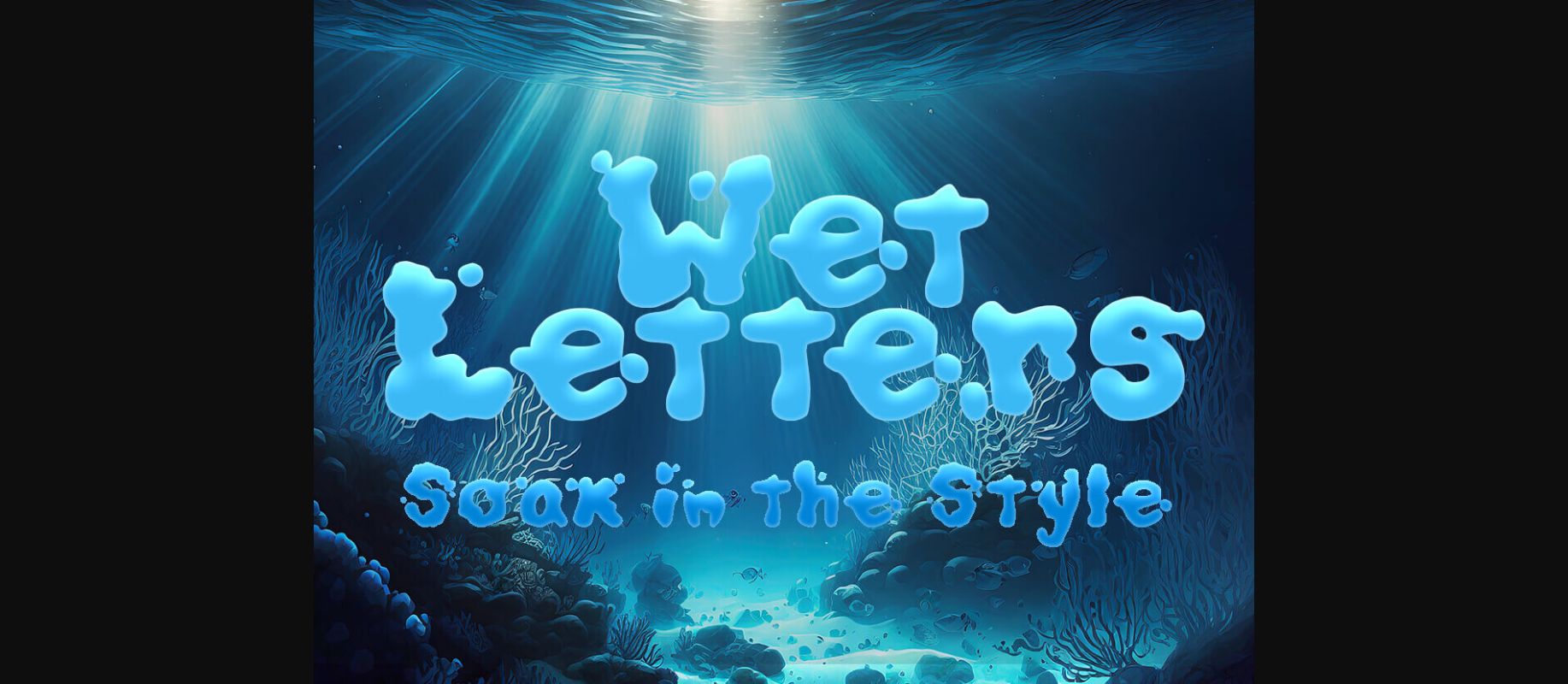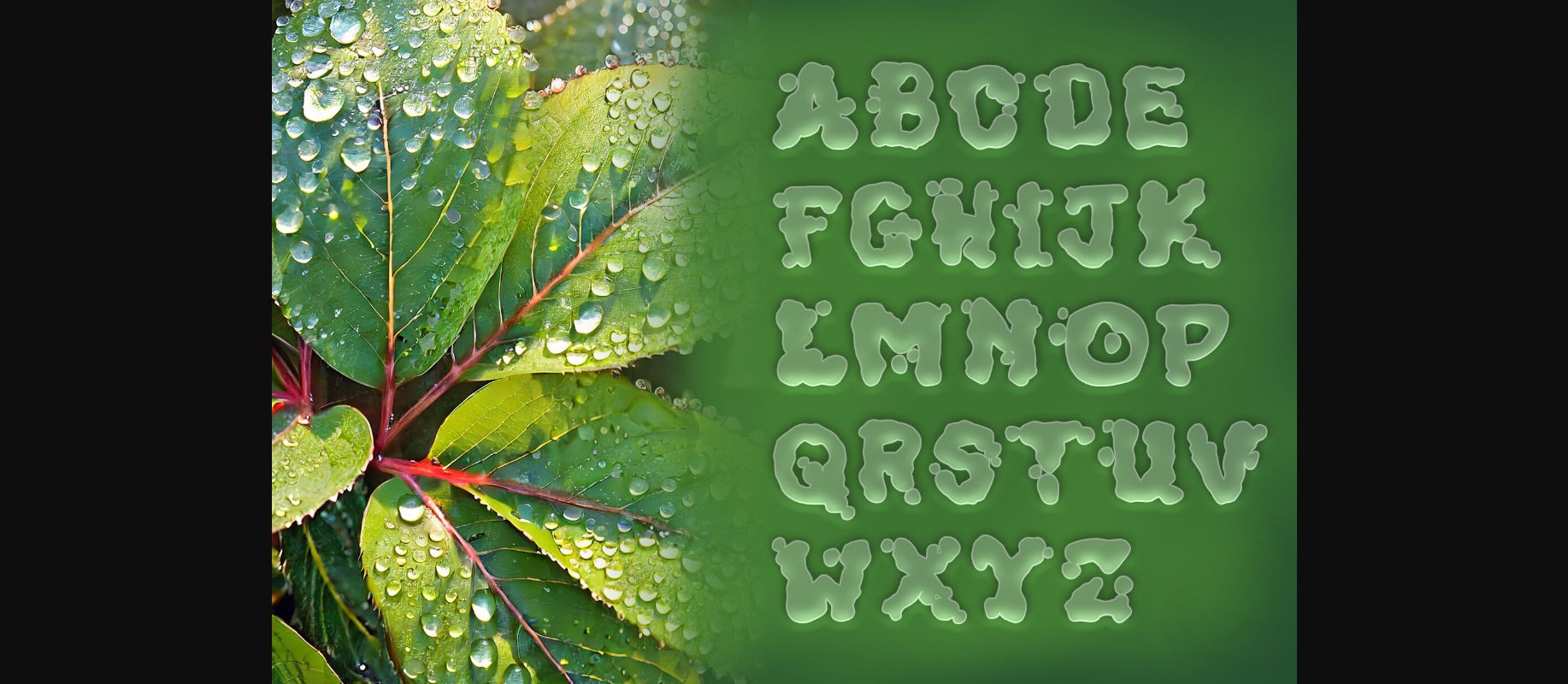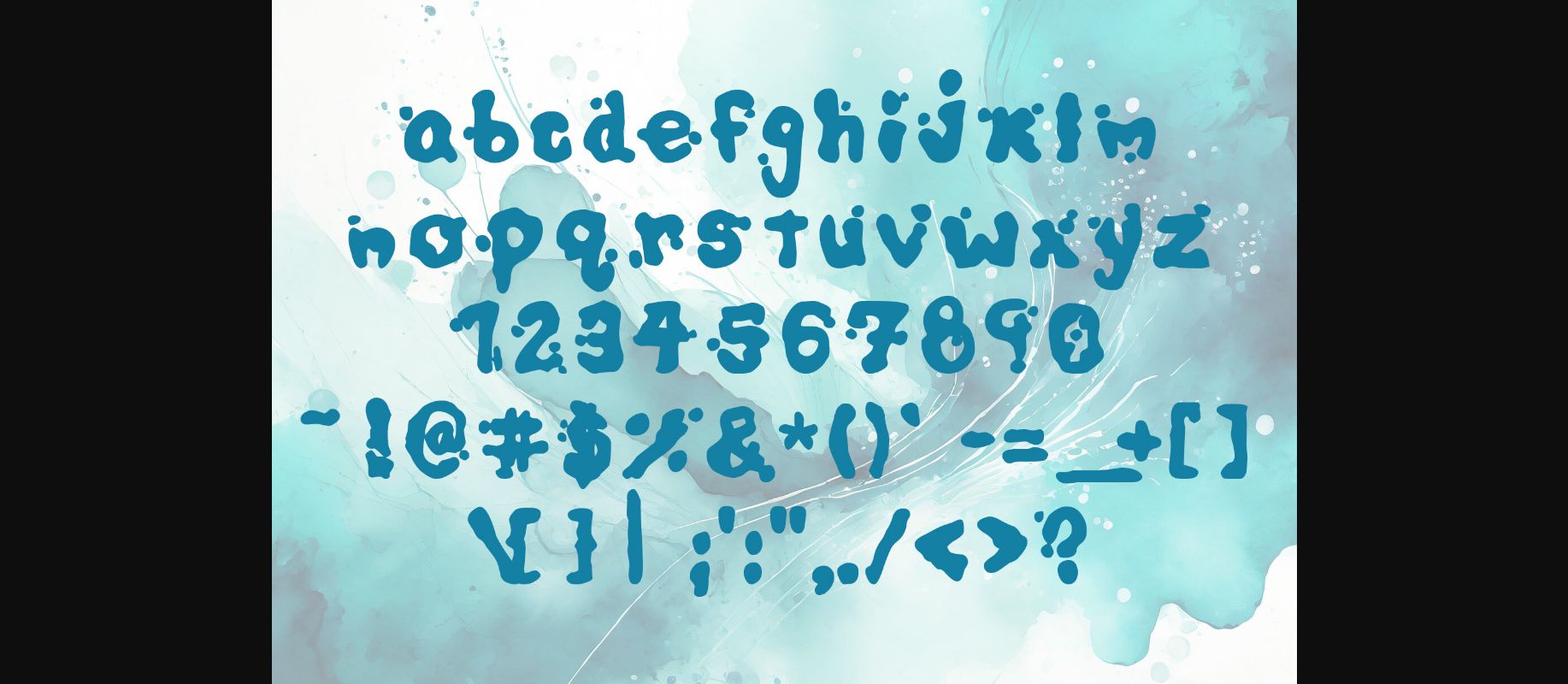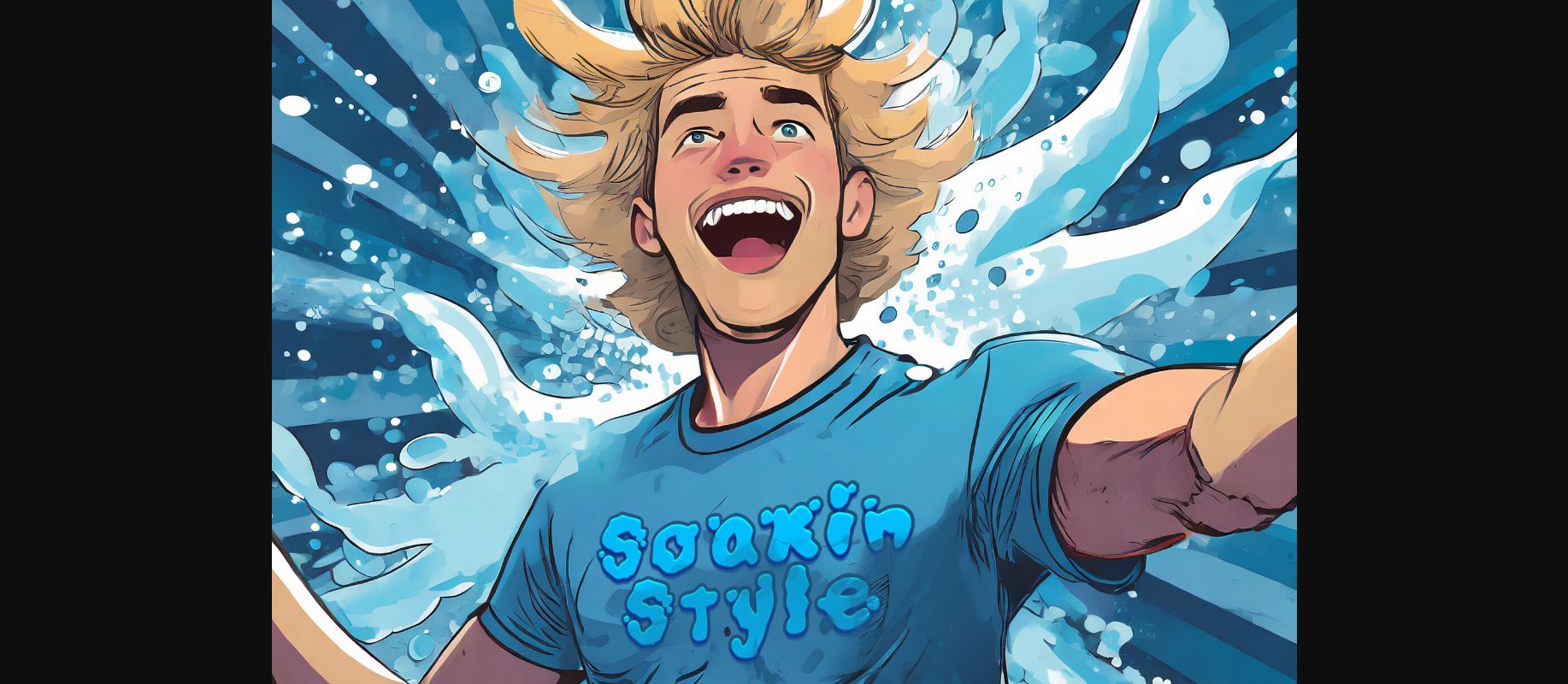
Wet Letters Font
About Wet Letters Font
Immerse your designs in the fluid beauty of “Wet Letters,” a typeface that epitomizes the elegance of water in motion. This isn’t just a font; it’s an experience, transforming every word into a symphony of liquid movement. Ideal for designers who yearn to bring dynamic, natural fluidity to their creations, “Wet Letters” offers more than mere letters—it brings your designs to life.